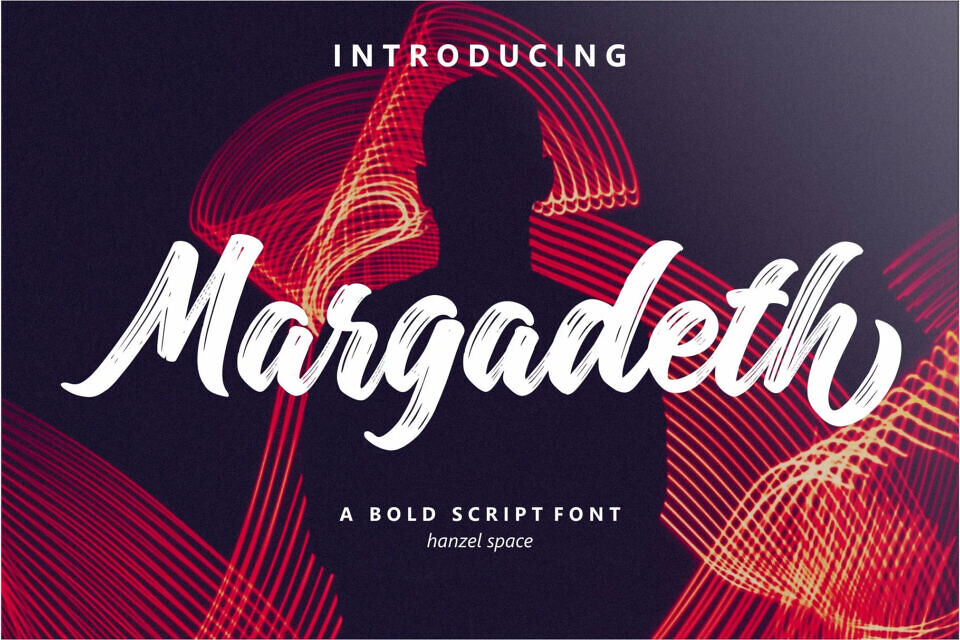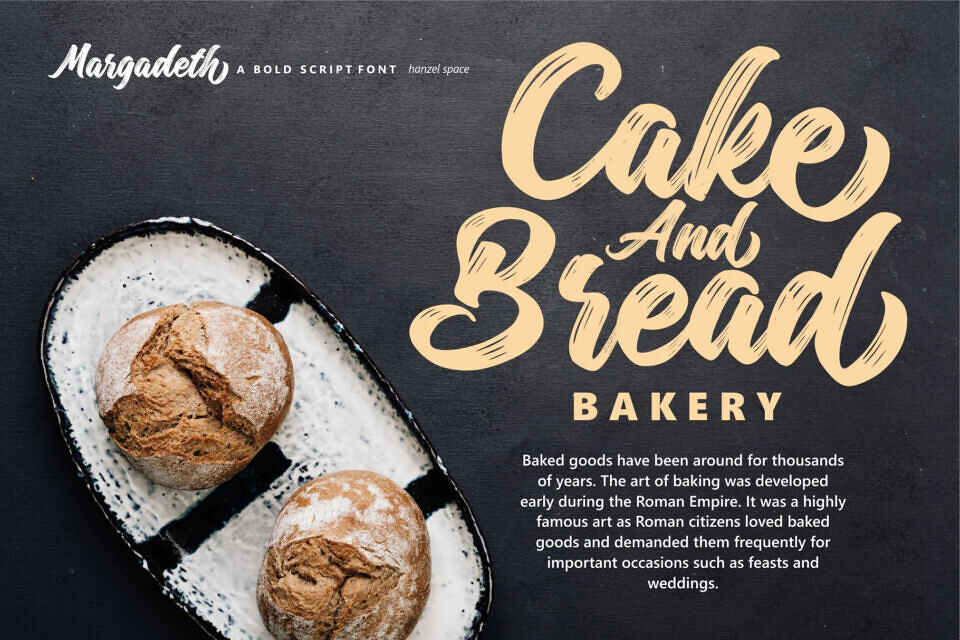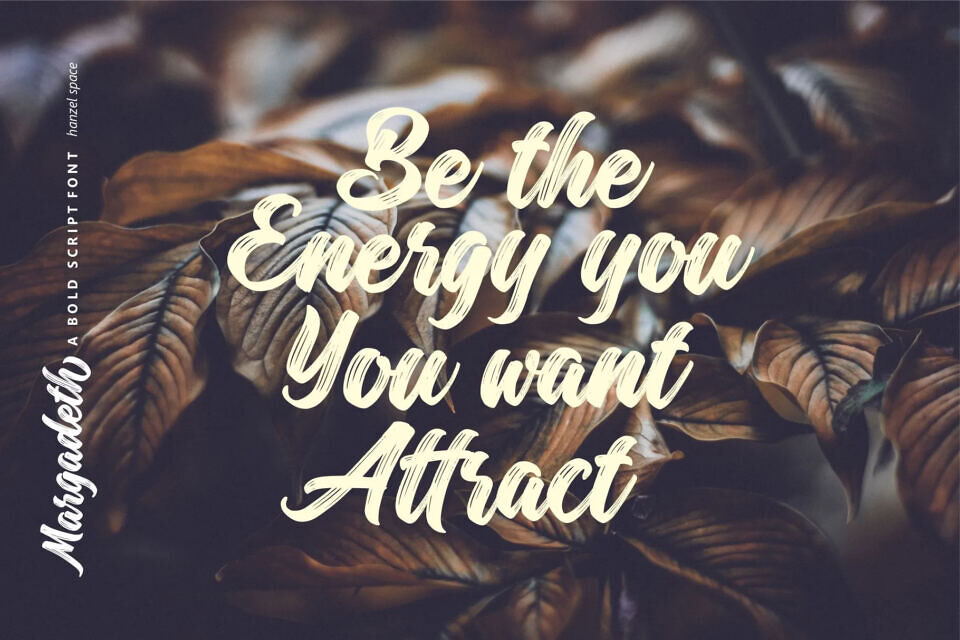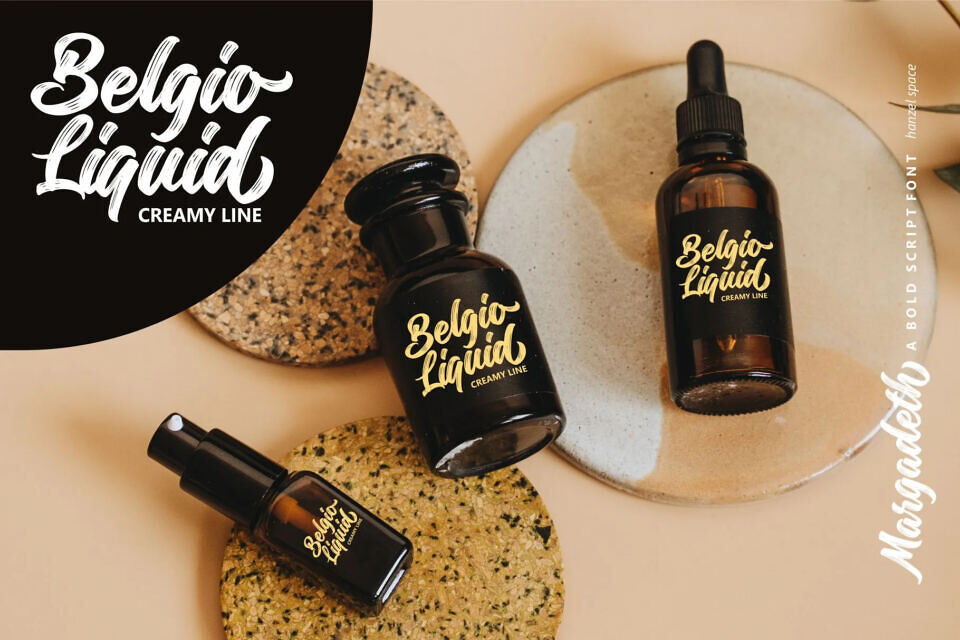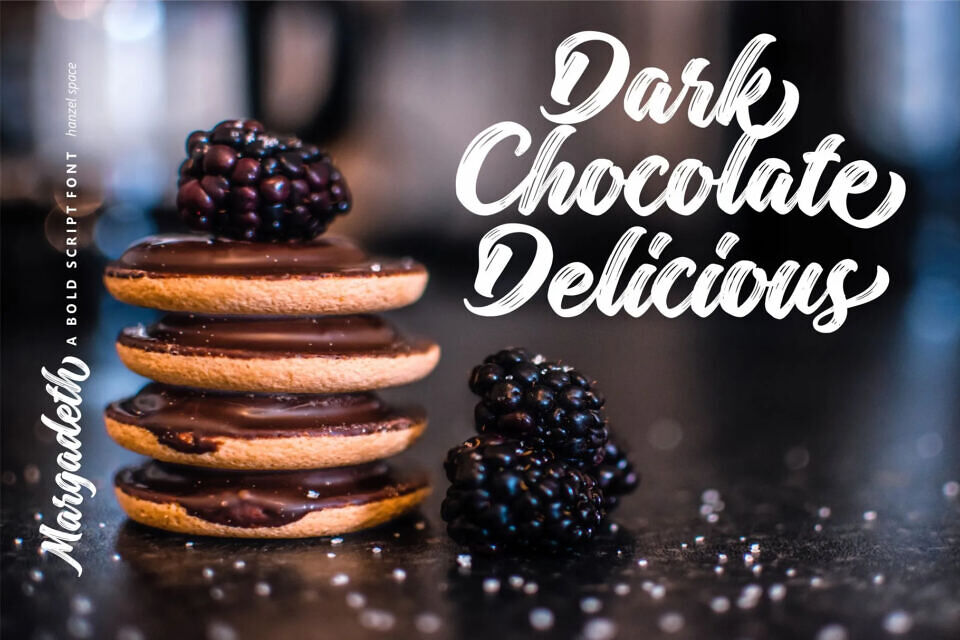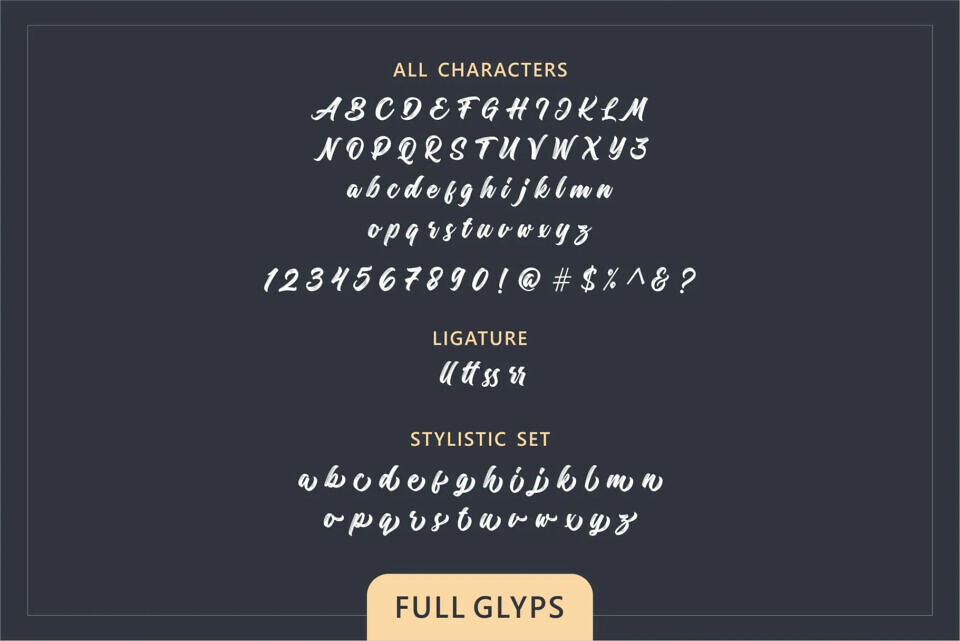
Margadeth is a bold, versatile script featuring a wide range of characters, including uppercase and lowercase letters, numbers, accents, and punctuation. It’s ideal for creating logos, apparel designs, and quotes. With PUA encoding, this font is ready to use, making it perfect for various design projects.